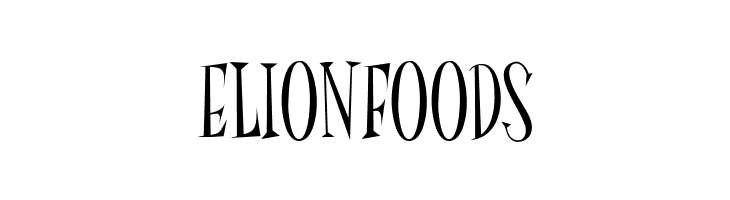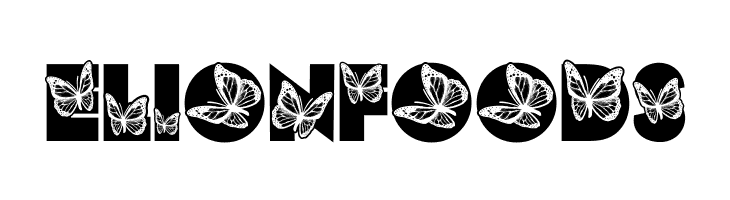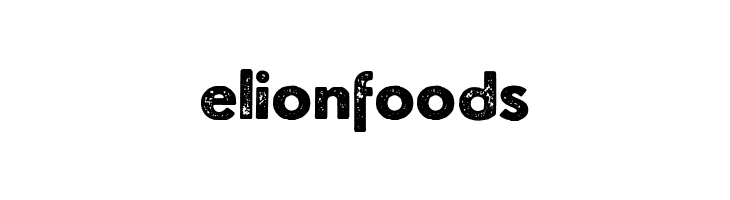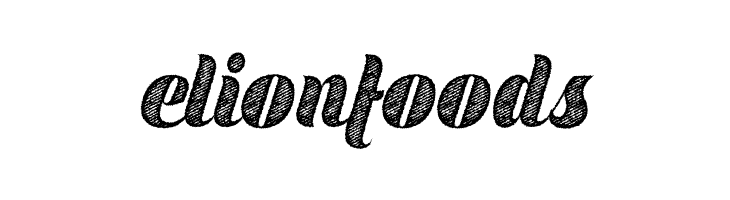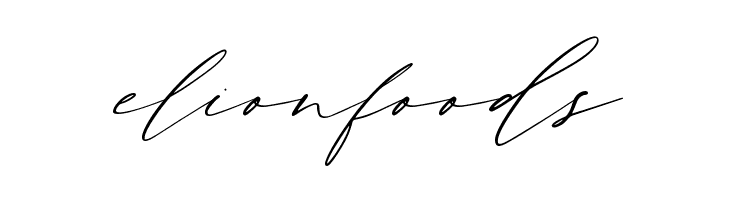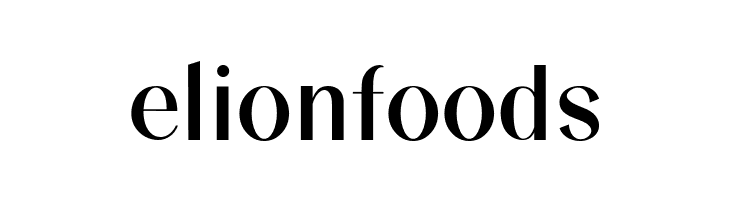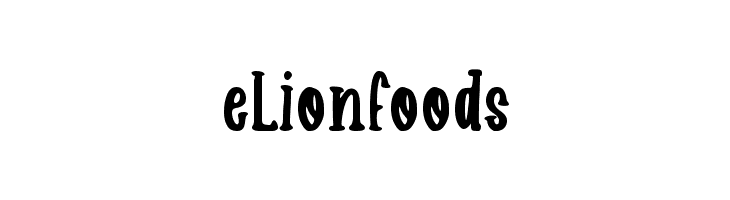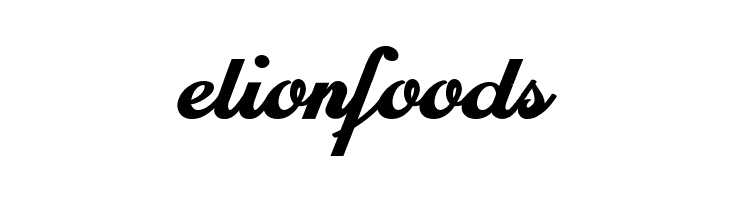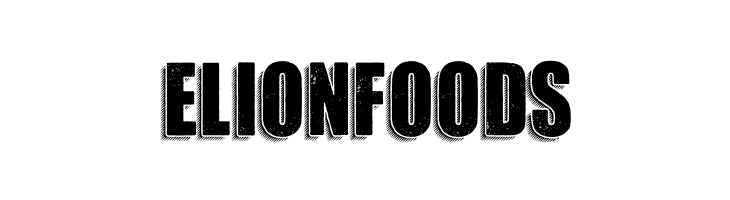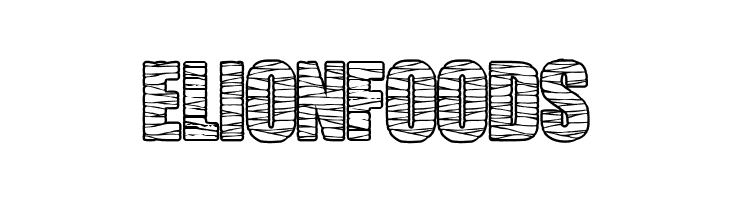
A decorative cursive font with elegant loops and swashes, offering a sophisticated handwritten style.
An elegant and flowing script font with ornate letterforms and decorative flourishes.
A bold, modern stencil font with geometric shapes and clean lines.
A decorative font with a heart pattern, ideal for playful and romantic designs.
A playful, bold, and rounded font with a hand-drawn, vintage charm.
An elegant and flowing script font with intricate, decorative letterforms.
A bold, decorative font with butterfly designs integrated into each letter.
An ornate and decorative font with intricate patterns, perfect for vintage-themed designs.
A decorative and eclectic font with intricate patterns and vintage flair.
A bold, decorative font with intricate foliage-like detailing.
A spooky, jagged font with a horror-themed aesthetic.
An elegant, flowing script font with high contrast and ornate details.
A bold, textured script font with a hand-drawn, connected style.
A dynamic and elegant script font with fluid, cursive strokes.
A bold, textured script font with a vintage, hand-drawn style.
A bold, distressed font with a vintage, playful style.
An elegant script font with flowing, decorative strokes.
A playful, dynamic font with bold, hand-drawn letterforms and exaggerated serifs.
A bold, shadowed font with a three-dimensional, playful style.
A modern, elegant font with high contrast and sharp, clean lines.
A bold, distressed decorative font with a vintage, textured style.
A bold, flowing script font with elegant cursive letters.
A tall, narrow, and modern font with clean lines and a structured appearance.
A dynamic and flowing script font with elegant, connected letterforms.
A bold, distressed font with a vintage, rugged aesthetic.
A bold, flowing script font with elegant curves and dynamic flourishes.
A dynamic, flowing script font with bold, elegant letterforms.
A dramatic, elongated serif font with sharp, angular features.
A hand-drawn, artistic font with elongated, irregular letterforms and a textured appearance.
A playful, hand-drawn font with bold, rounded characters and a whimsical style.
A bold, decorative font with a mummy wrapping design, ideal for Halloween themes.
A bold, flowing script font with high contrast and elegant curves.
A bold, flowing script font with elegant curves and a classic calligraphic style.
A playful, hand-drawn font with a bold and quirky style.